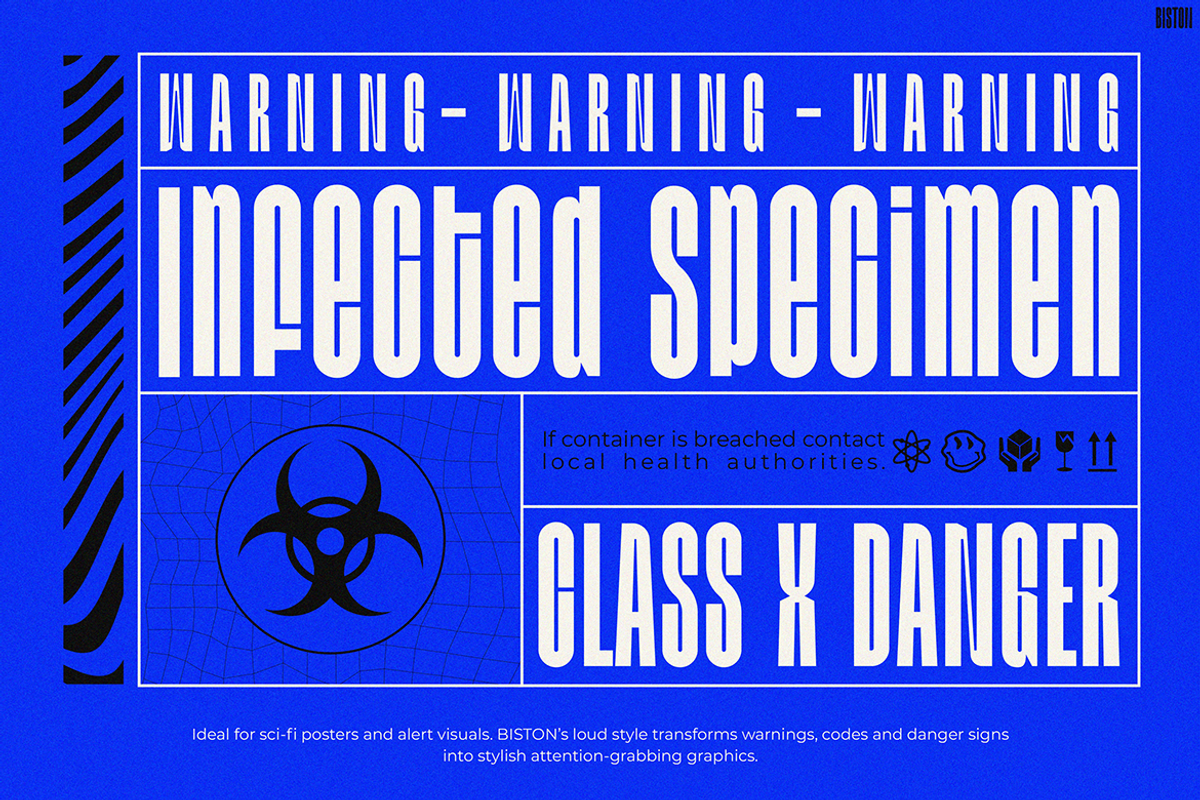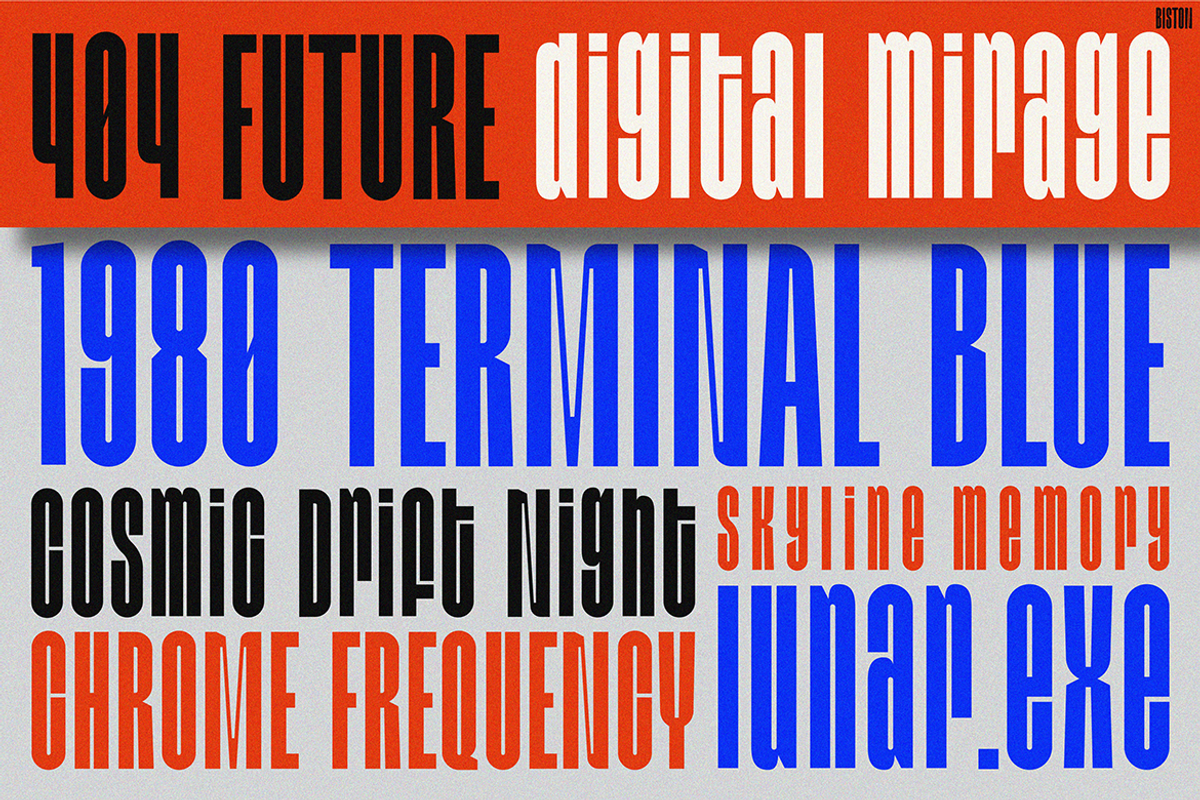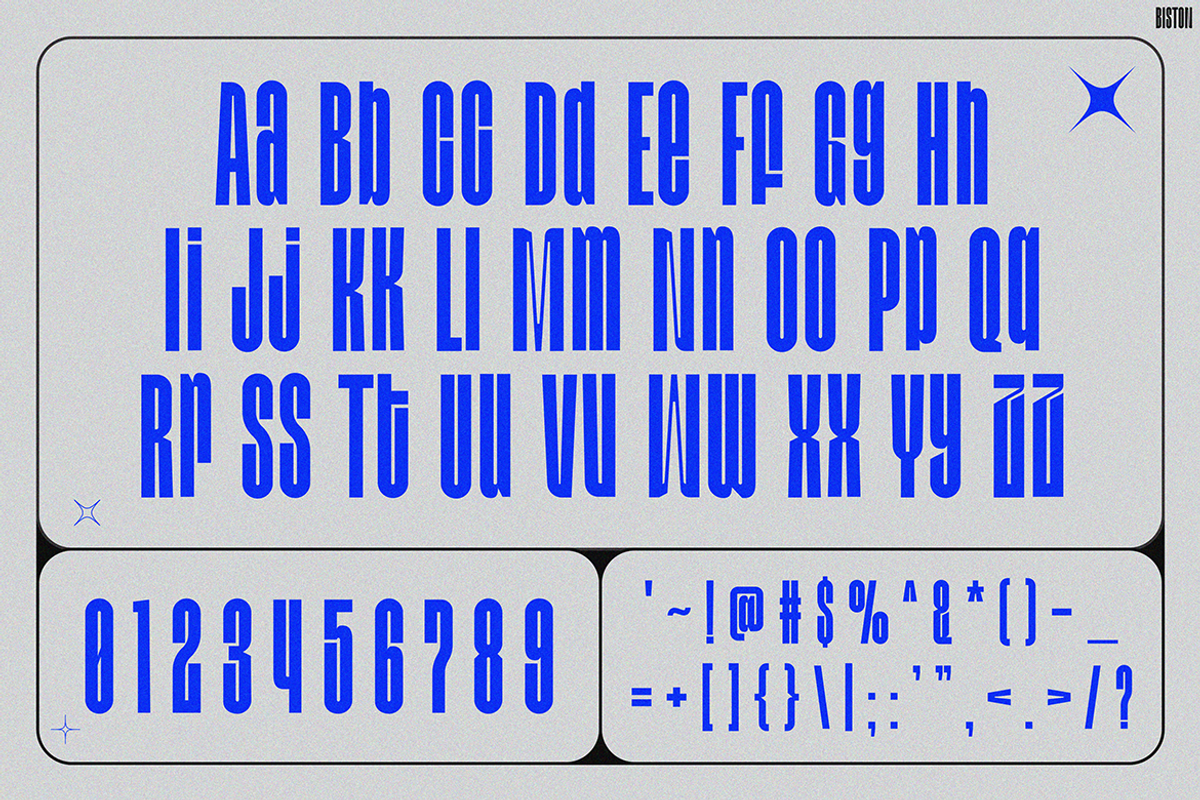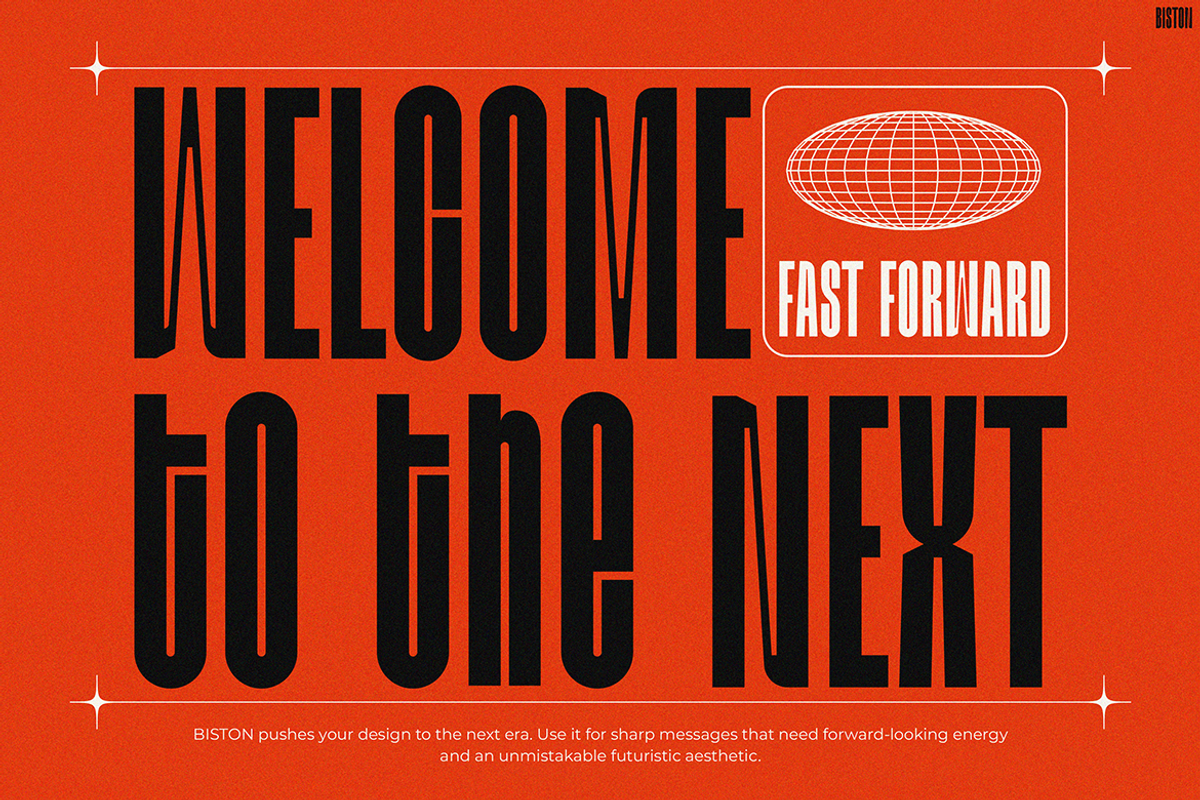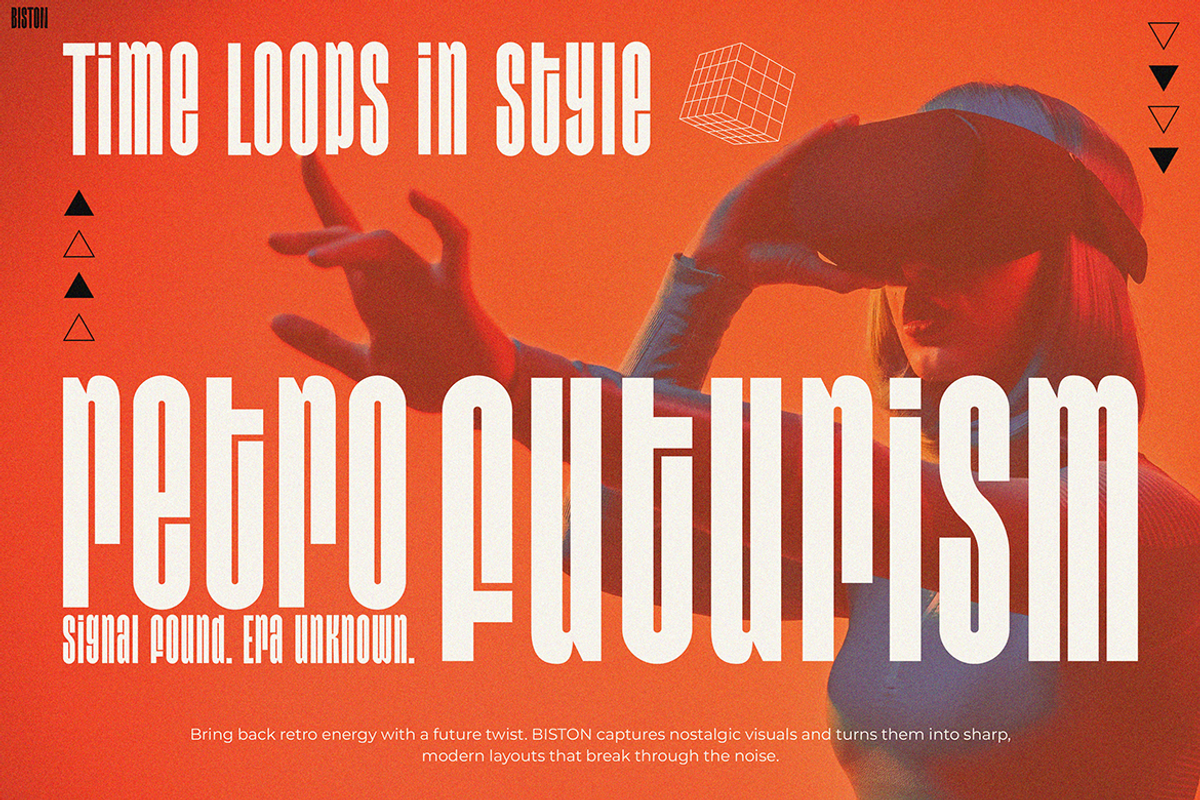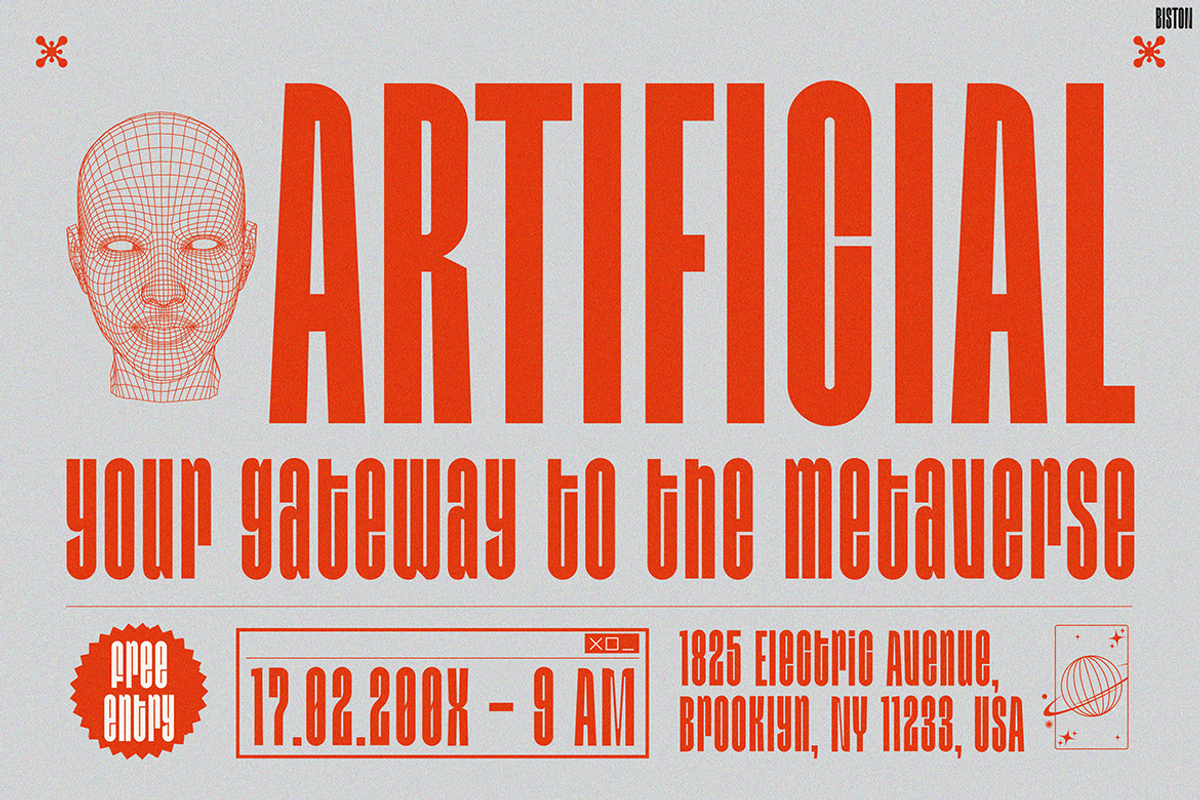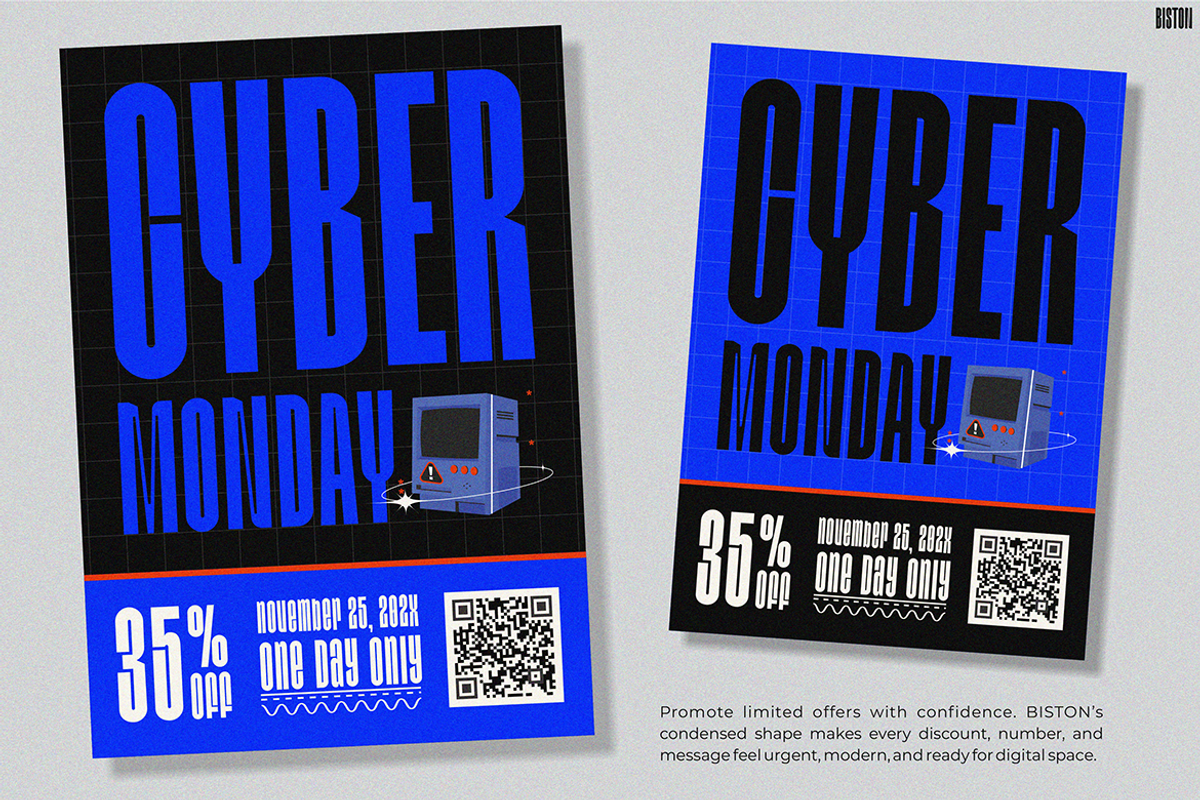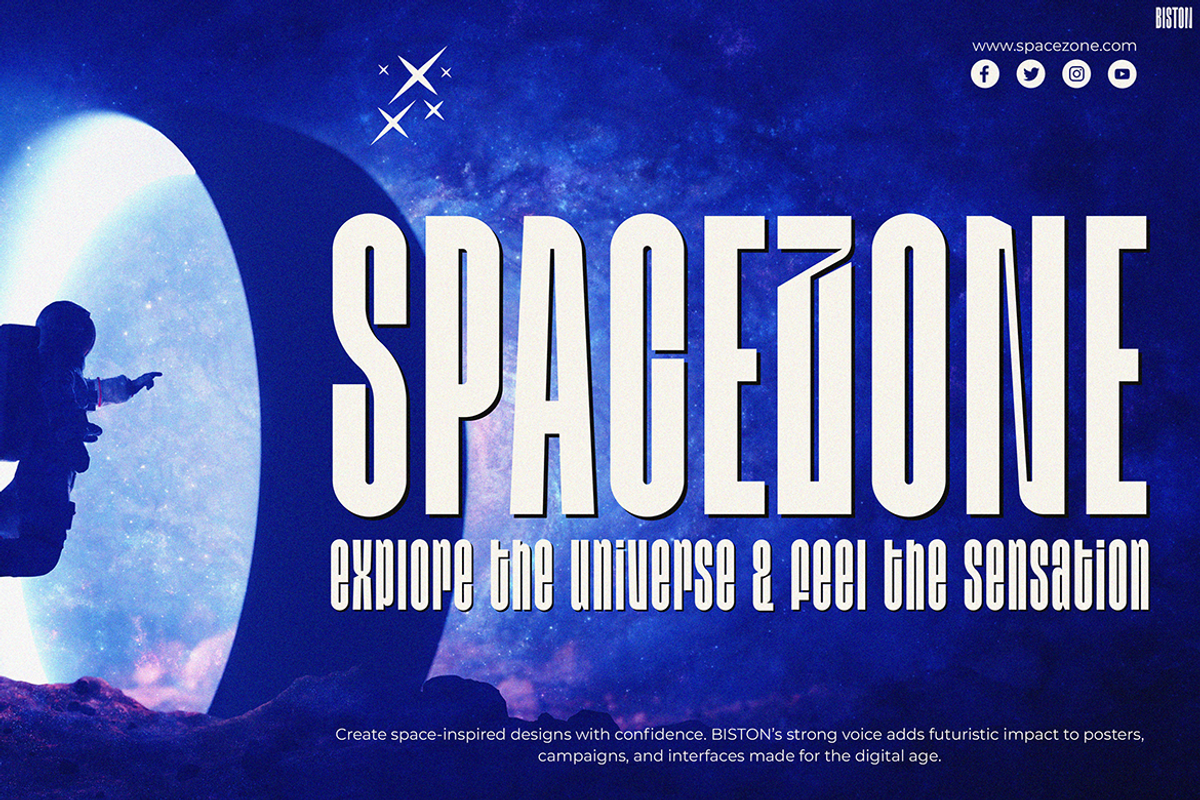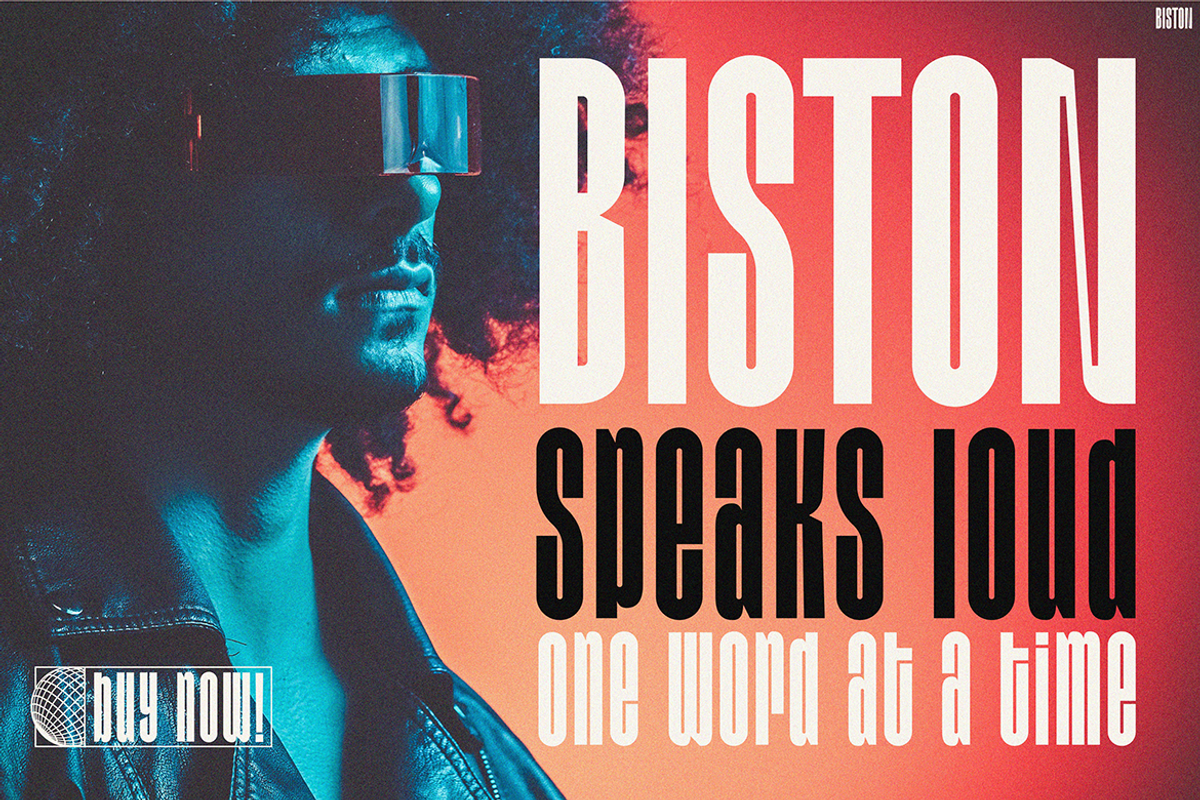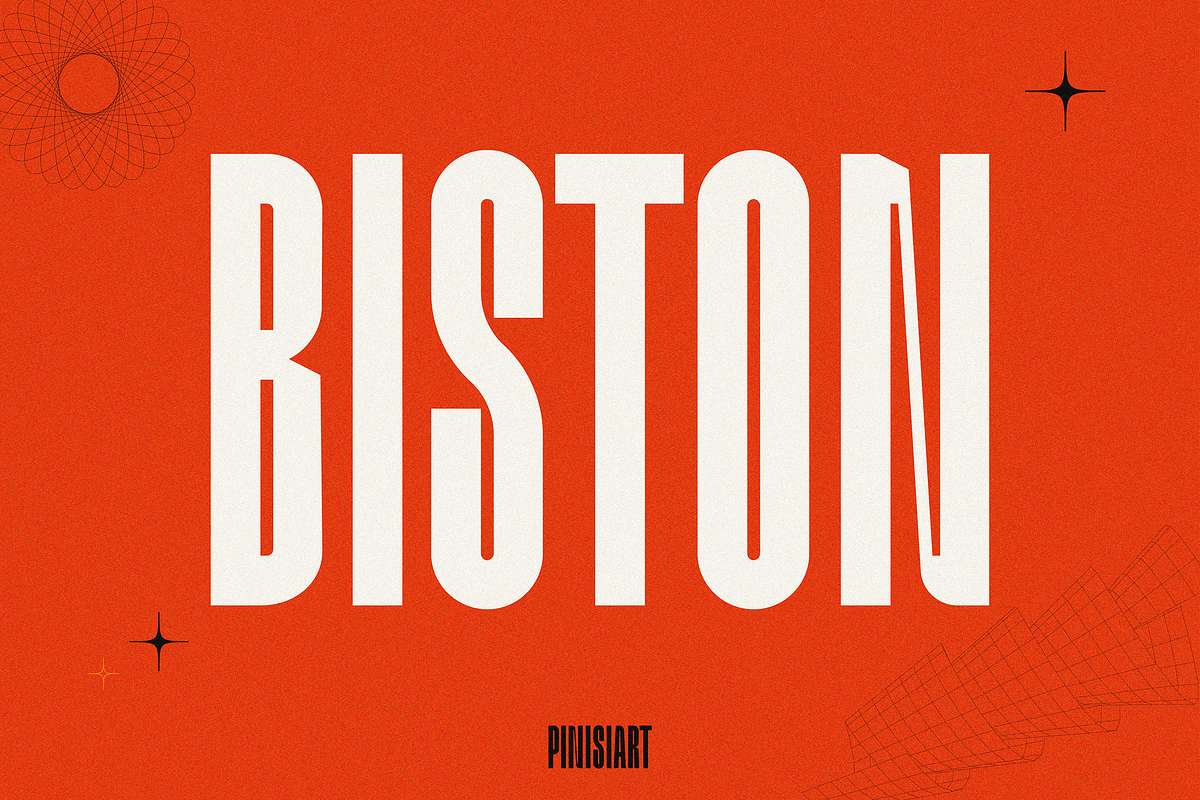
BISTON
Instagram Font BISTON immediately draws attention with its bold, futuristic letterforms that not only command but also sustain visual impact. Furthermore, its high-contrast strokes and elongated proportions create a dynamic rhythm that feels both modern and timeless. Moreover, inspired by sci-fi aesthetics and digital interfaces, BISTON perfectly balances robust solidity with elegant curvature; as a result, it delivers eye-catching versatility across any creative project. Additionally, its carefully crafted details ensure that every letter appears both powerful and refined, making it truly stand out in a crowded design landscape.
Firstly, BISTON stands out thanks to its blend of cutting-edge minimalism and retro-futuristic flair. Additionally, each uppercase glyph combines sharp vertical lines with subtle, rounded terminals—thus generating a techno-industrial vibe without sacrificing clarity. Secondly, the lowercase characters mirror this approach in a more condensed form, which makes them ideal for body text or tagline treatments. Furthermore, BISTON includes alternate stylistic sets—such as deconstructed cut-out forms and extended widths—thereby granting designers abundant creative freedom. Also, its multilingual support covers a wide range of languages and diacritics, ensuring seamless global communication. Finally, the carefully balanced x-height ensures consistent legibility across both digital and print media; consequently, your message remains clear and impactful.